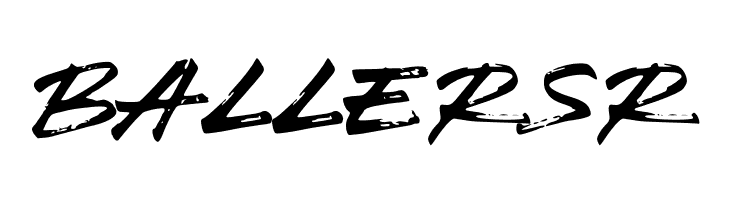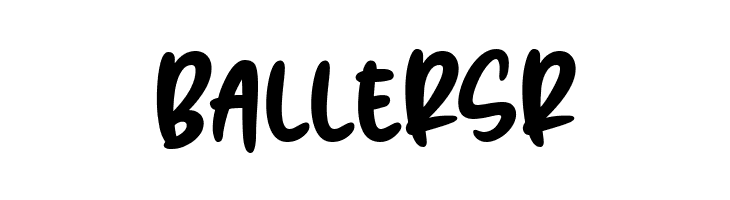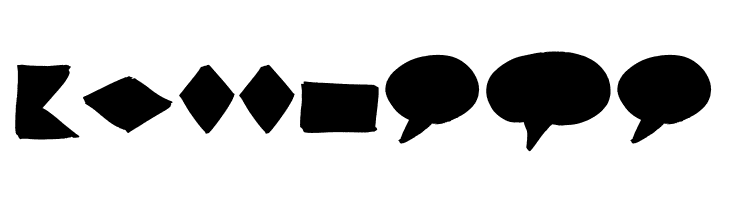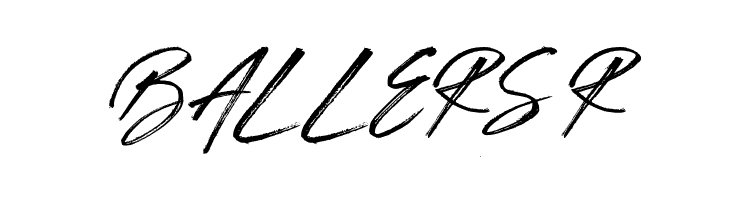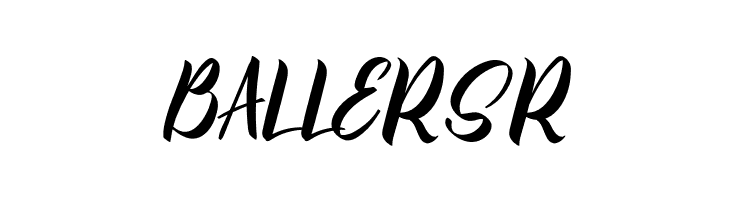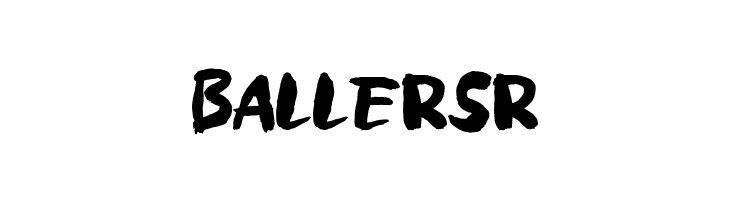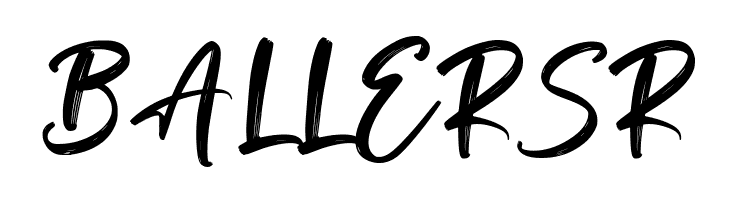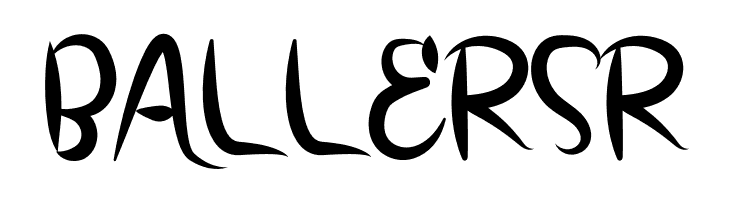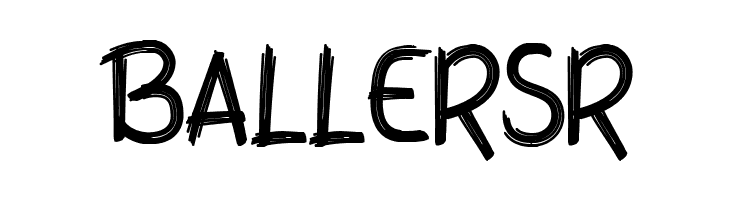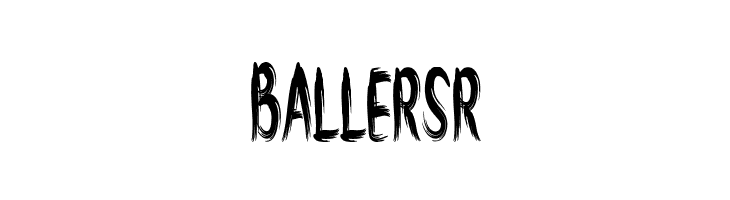
A bold, brush-style font with a playful, handwritten look.
A dynamic brushstroke-inspired font with an artistic and textured appearance.
A bold, brush-style font with a dynamic and creative appearance.
A dynamic brush script font with fluid, expressive strokes and artistic flair.
A brush-style font with a glitch effect, offering a modern and edgy look.
A bold, brush-style font with a handwritten, dynamic appearance.
A bold, brush-style font with a playful and energetic vibe.
A bold, dynamic brush-style font with textured, hand-painted strokes.
A bold, handwritten font with a playful brush marker style.
A bold, brush-style font with dynamic and expressive strokes.
A playful, hand-drawn script font with dynamic strokes and decorative flair.
A playful, brush-style font with bold, rounded characters.
A bold, brush-style font with dynamic and expressive characters.
Hand-drawn, bold brush-style shapes and comic elements.
A bold, brush-style font with a dynamic and expressive handwritten look.
A bold, brush-stroke style font with dynamic, hand-painted letterforms.
An artistic font with bold, expressive brush strokes.
A dynamic brush script font with fluid, expressive strokes.
A bold, brush-stroke style font with an artistic and dynamic appearance.
A dynamic, brush-style font with expressive, hand-painted strokes.
A bold, brush-style font with a hand-drawn, energetic appearance.
A bold, brush script font with dynamic and expressive strokes.
A rebellious, brush-stroke font with jagged edges and dynamic energy.
A bold, edgy font with sharp, jagged strokes and a rebellious style.
A bold, brushstroke-style font with a dynamic and artistic flair.
A dynamic brush script font with fluid, natural strokes and a casual, artistic style.
A bold, expressive brush-style font with dynamic strokes and a hand-painted look.
A bold, brush-style font with dynamic, hand-painted strokes.